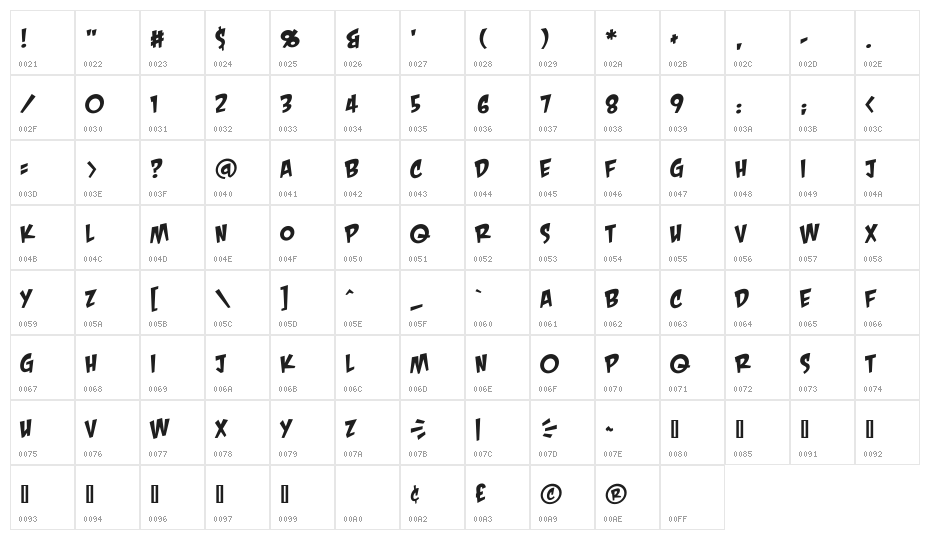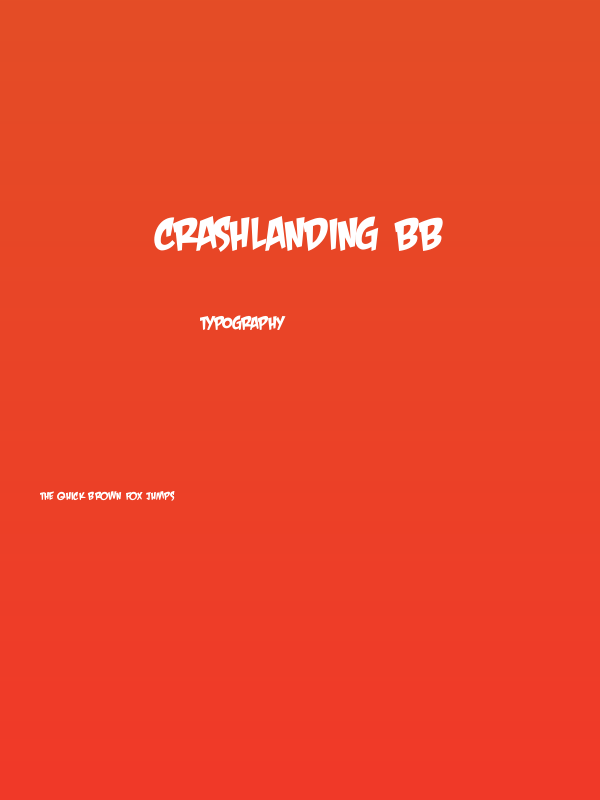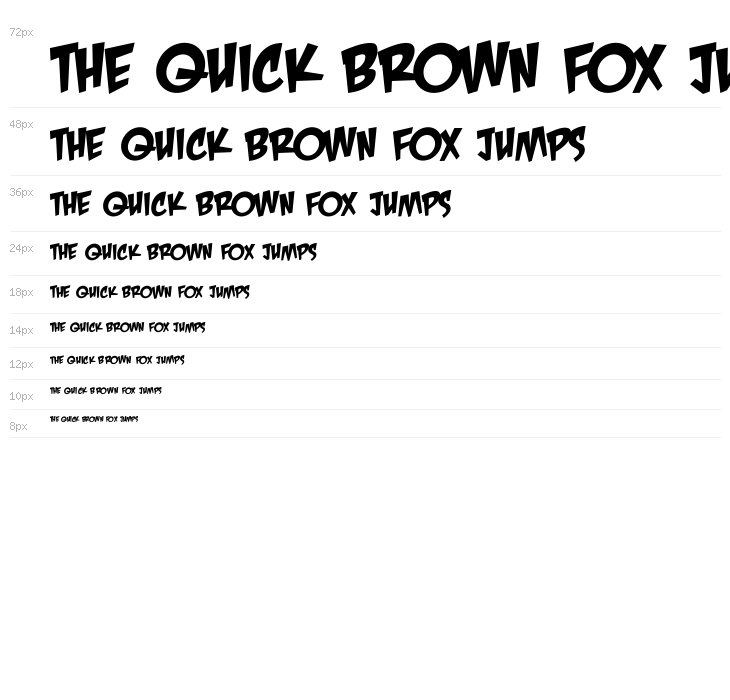
CrashLanding BB Font
CrashLanding BB Description
This font features a bold and dynamic style with a playful, comic-like appearance. The letters are slightly slanted, giving a sense of motion and energy. Each character is thick and robust, with exaggerated curves and angles that create a sense of fun and excitement. The uppercase and lowercase letters maintain a consistent style, while the numbers and special characters complement the overall design. This font is ideal for projects that require a lively and engaging visual impact.
| Overall Style | Playful, Comic |
| Use Case | Headlines, Posters, Branding |
| Proposed Projects | Perfect for comic books, children's books, playful branding, posters, and event flyers. |